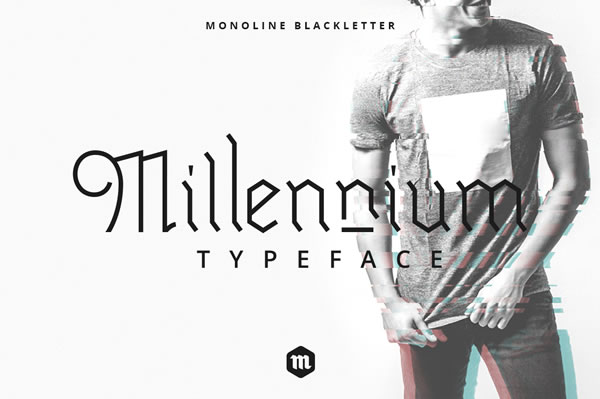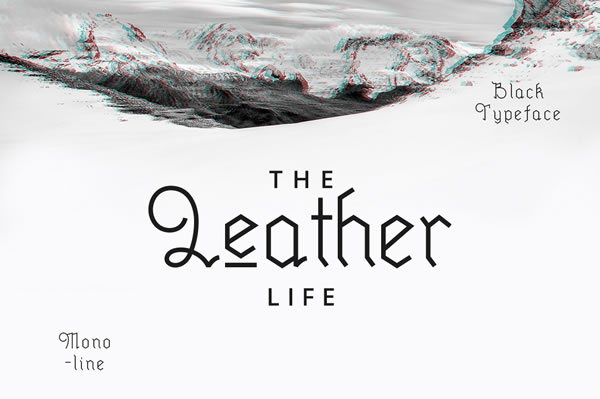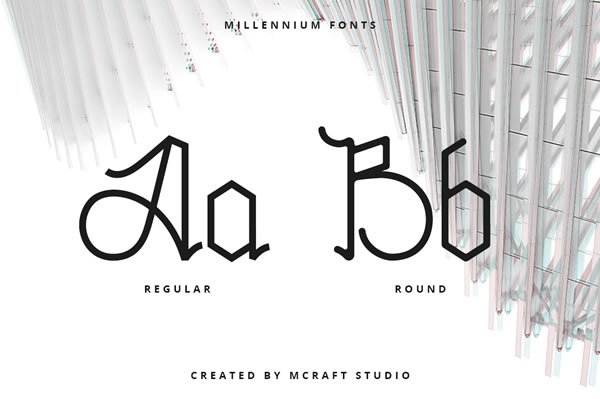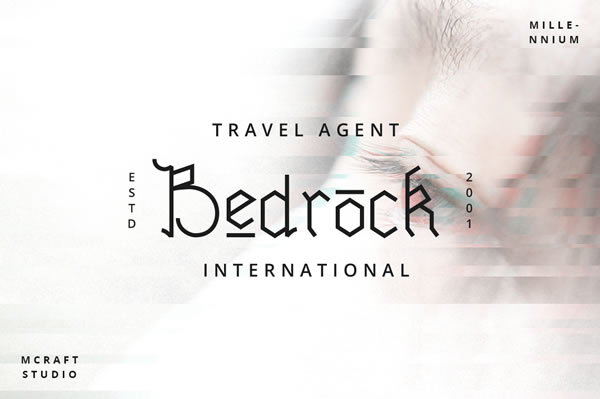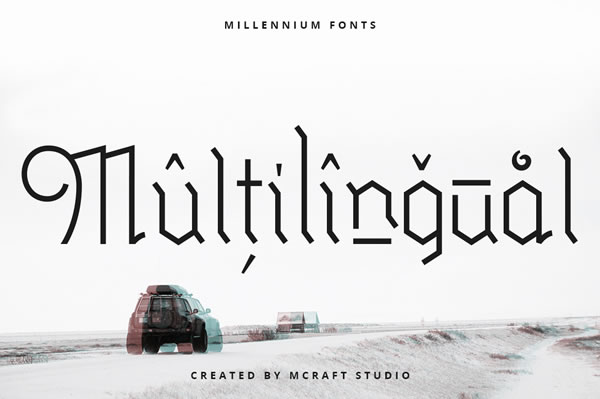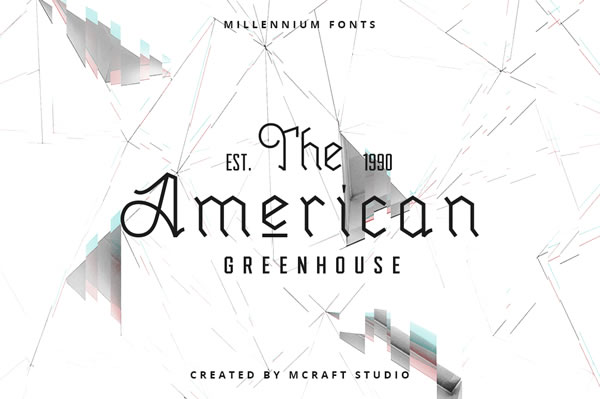
HomeBlackletter FontsMillennium Font Blackletter Fonts Millennium Font FacebookXPinterestWhatsApp 1 of 7 Millennium Font - 1 Millennium Font - 2 Millennium Font - 3 Millennium Font - 4 Millennium Font - 5 Millennium Font - 6 Millennium Font - 7 About Millennium Font Millennium is a gothic-inspired font. DOWNLOAD ON CREATIVE FABRICAThis font is sold and delivered by Creative Fabrica. Font Canyon may earn a commission if you buy through this link. People also explored Mellow Yellow Font Amfiby Font Arief Font Rembullan Font Lovely Floral Font Claudia Font Nomotype Font Molea Font Christmas Monogram Font 497 0 TagsMillennium Font Previous articleBucanera Antiqued Family FontNext articleBlack Madness Font LEAVE A REPLY Cancel reply Comment: Please enter your comment! Name:* Please enter your name here Email:* You have entered an incorrect email address! Please enter your email address here Website: Save my name, email, and website in this browser for the next time I comment. Personal Use Free Hysteria Santa Personal Use Free Read more about this font Trunk Shaped Personal Use Free Read more about this font Bahjera Personal Use Free Read more about this font Ashay Personal Use Free Read more about this font BLOG 5 Fonts That Will Dominate Design Trends in 2026 5 Fonts for 2026 That Will Dominate Design Trends Typography plays a critical role in visual communication, and as we look ahead to 2026, it’s... Free vs Paid Fonts: Why Investing in Premium Fonts Is Worth It The 10 Best Handwriting Fonts to Add Personality to Your Designs Top 10 Handwritten Fonts That Elevate Your Designs